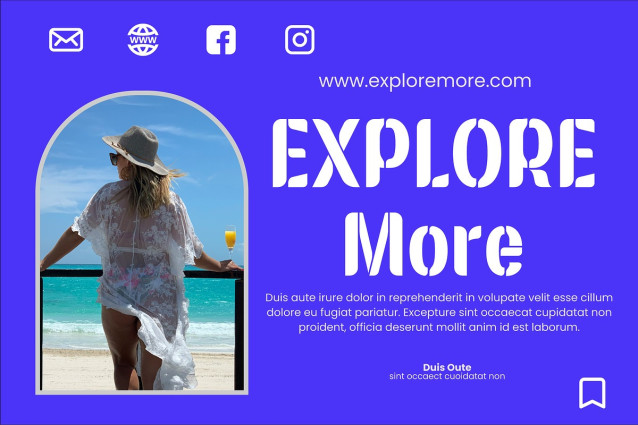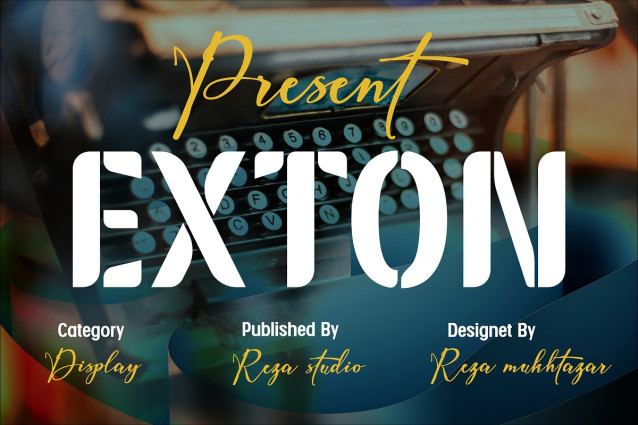
Exton Italic Font
Exton Italic Font a striking display font crafted to make your designs stand out. Inspired by modern geometry and clean cuts, EXTON delivers a powerful visual presence with its bold letterforms and unique sliced details. Perfect for projects that demand attention and a contemporary edge.